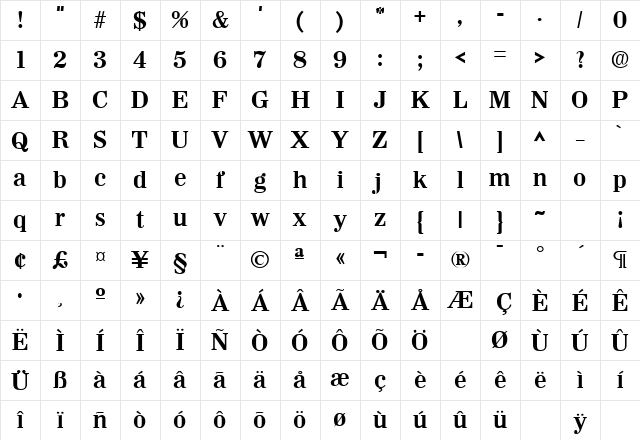
Wichita Bold
Design Context for Wichita
Wichita is a composed and adaptable typeface that performs quietly and consistently across a wide range of design contexts. Its bold stroke weight gives it real presence on the page.